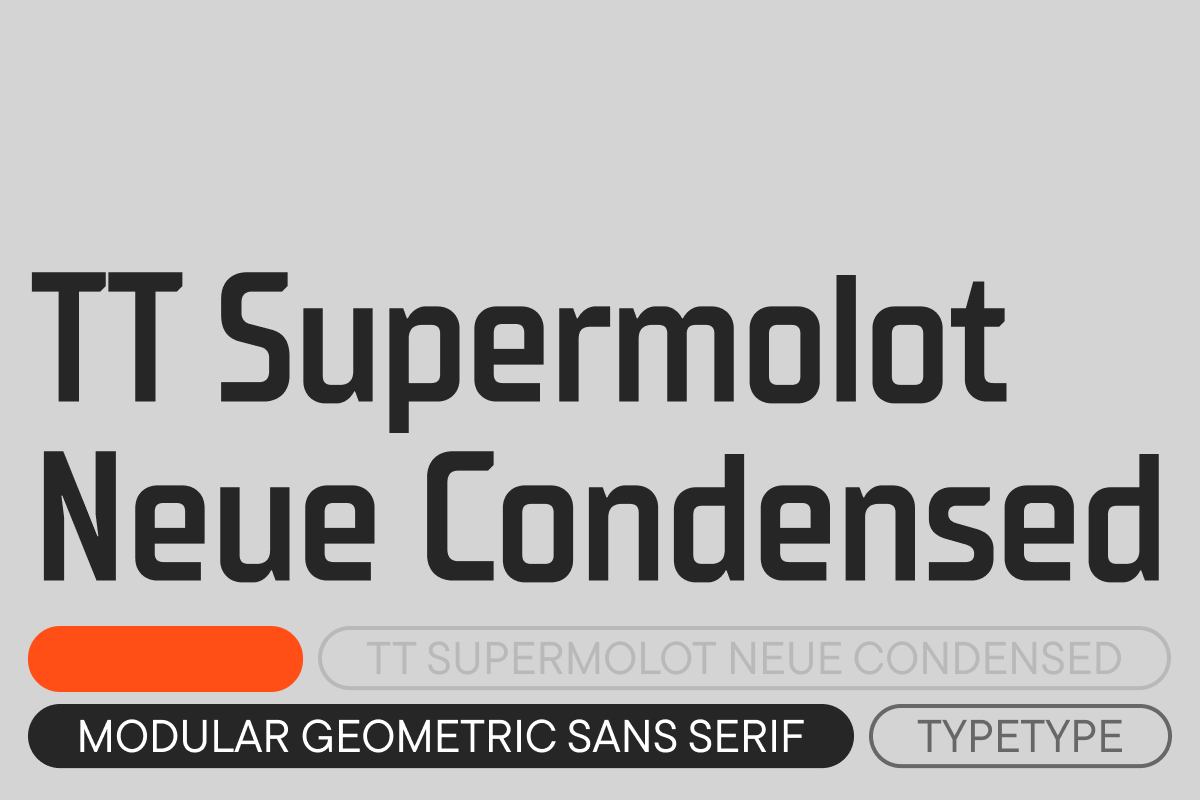
TT Supermolot Neue Condensed Thin
TT Supermolot Neue is an advanced, modular sans serif. It’s a powerful and dynamic font with a futuristic feel. Its squared forms give the typeface a robust appearance. However, the chopped angles of particular elements make it look flexible and ergonomic. The font features various distinctive details: beautiful junctions, peculiar “steps,” and angles in squared ovals. TT Supermolot Neue reveals its full potential in medium and large point sizes while staying readable in small point sizes.